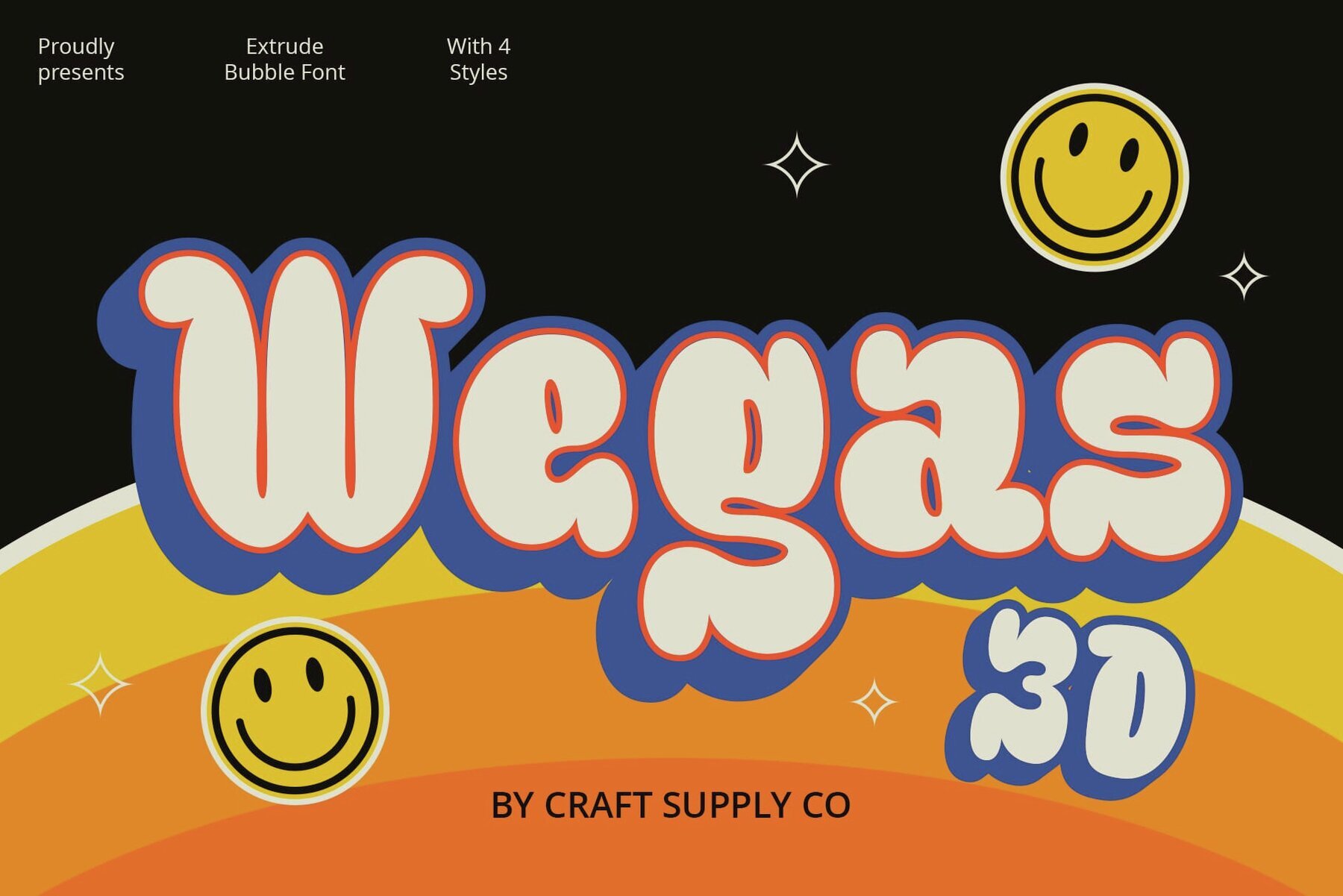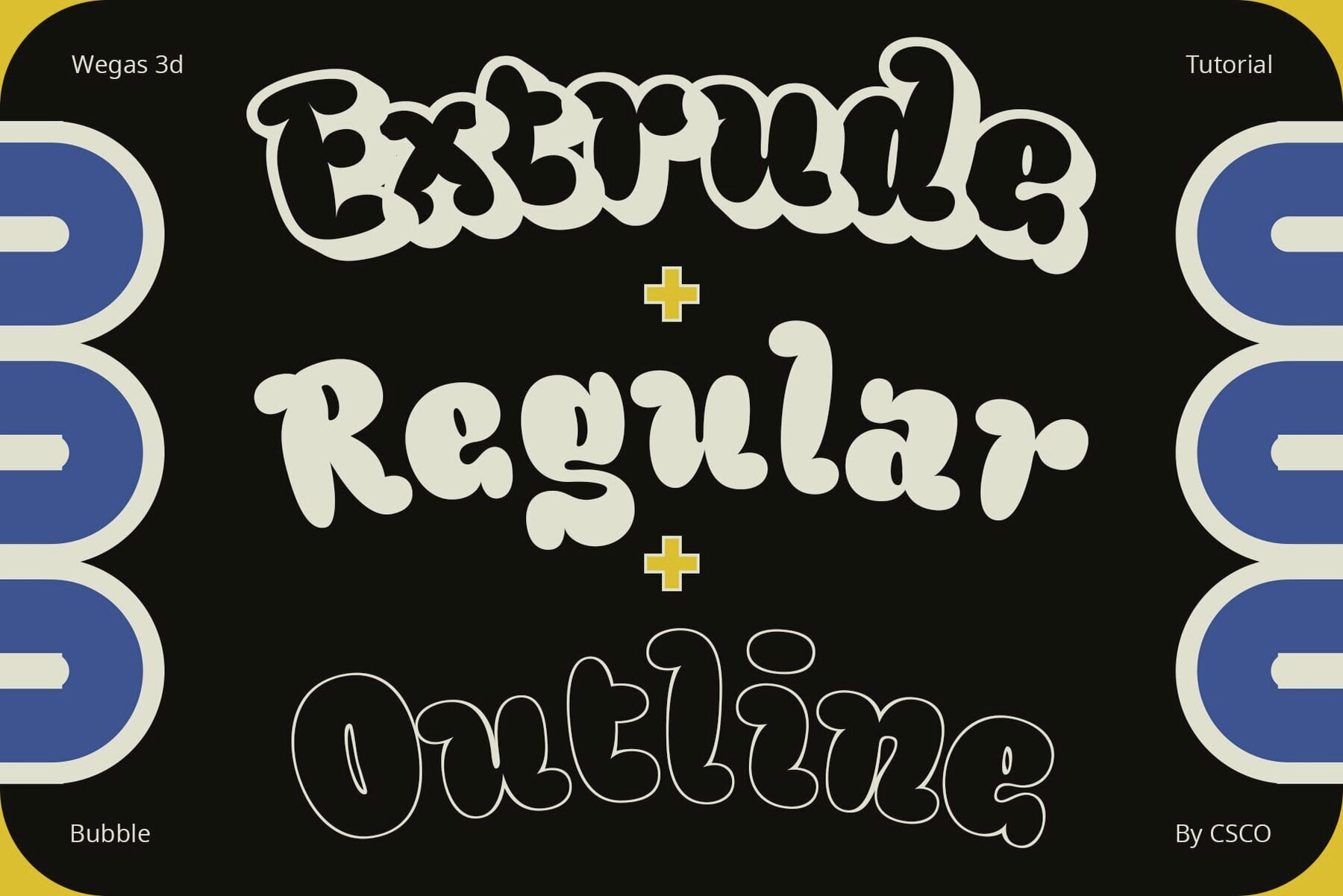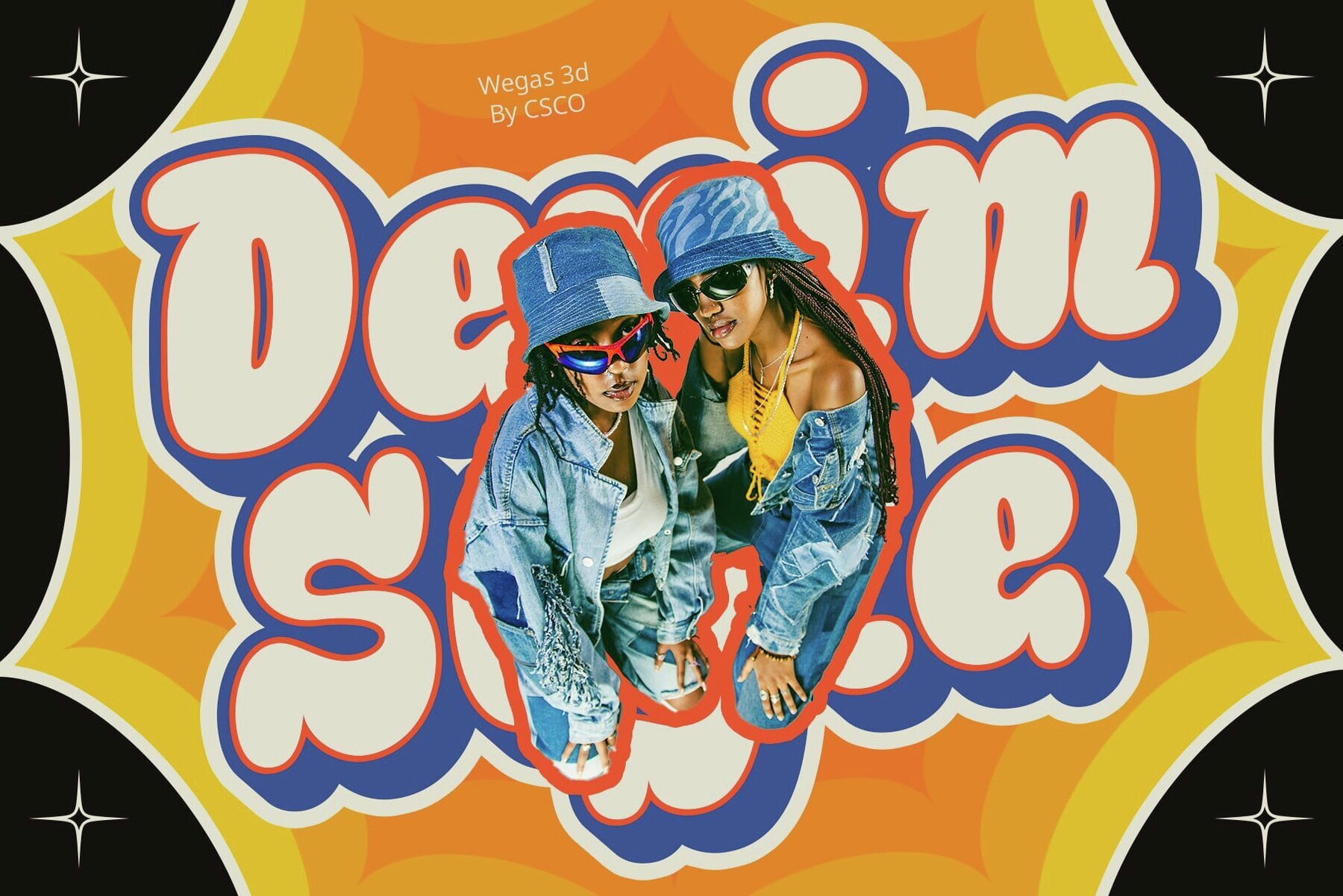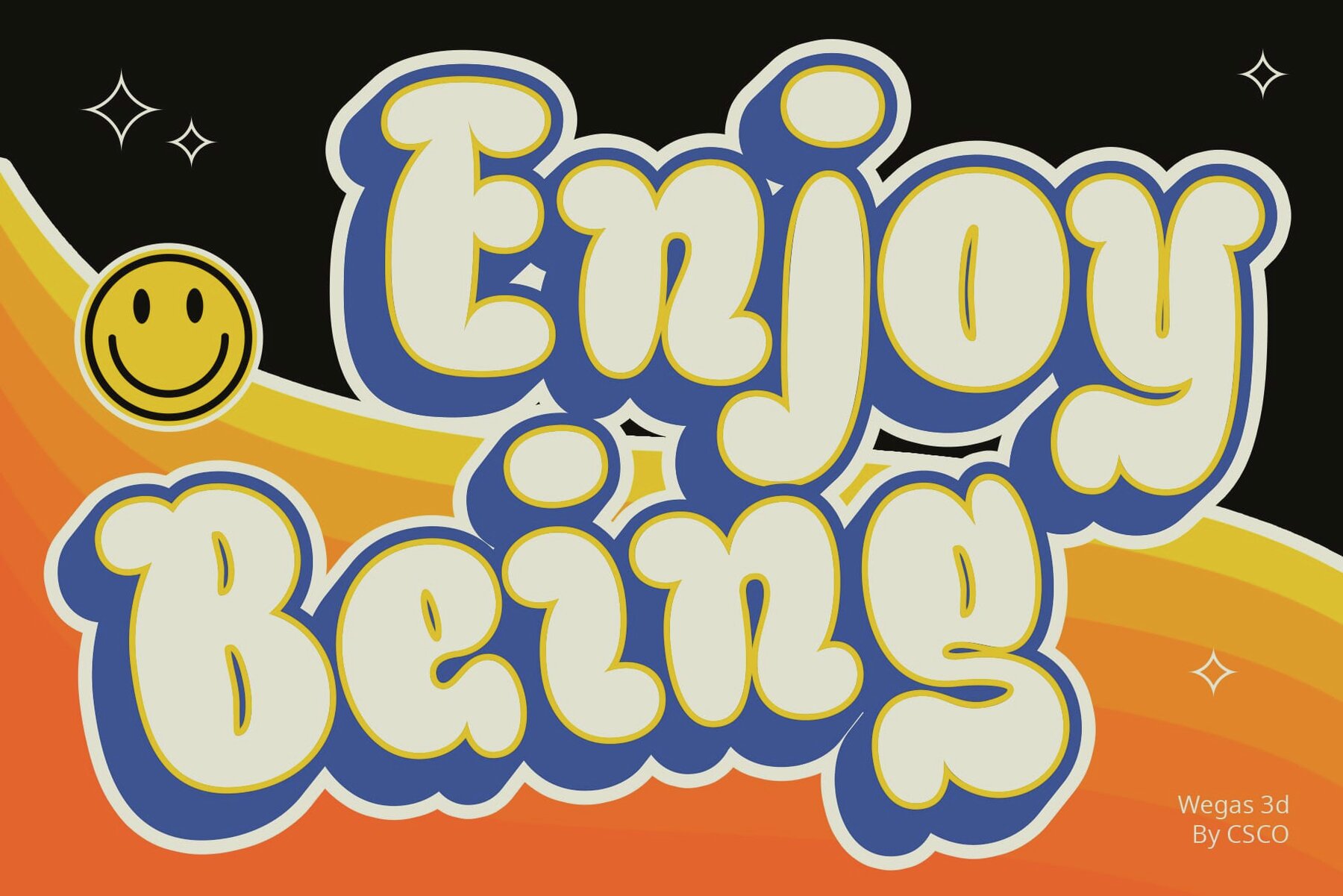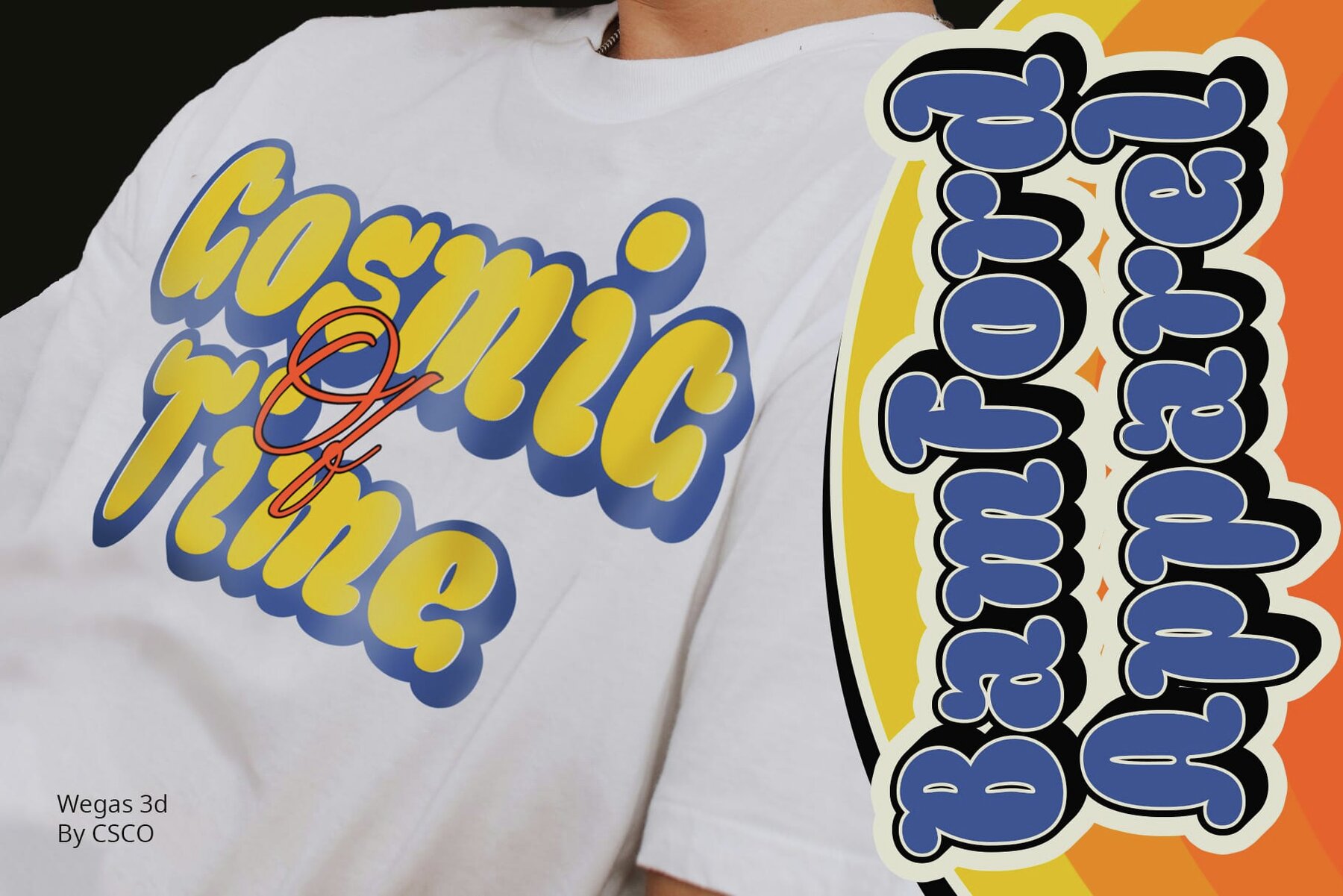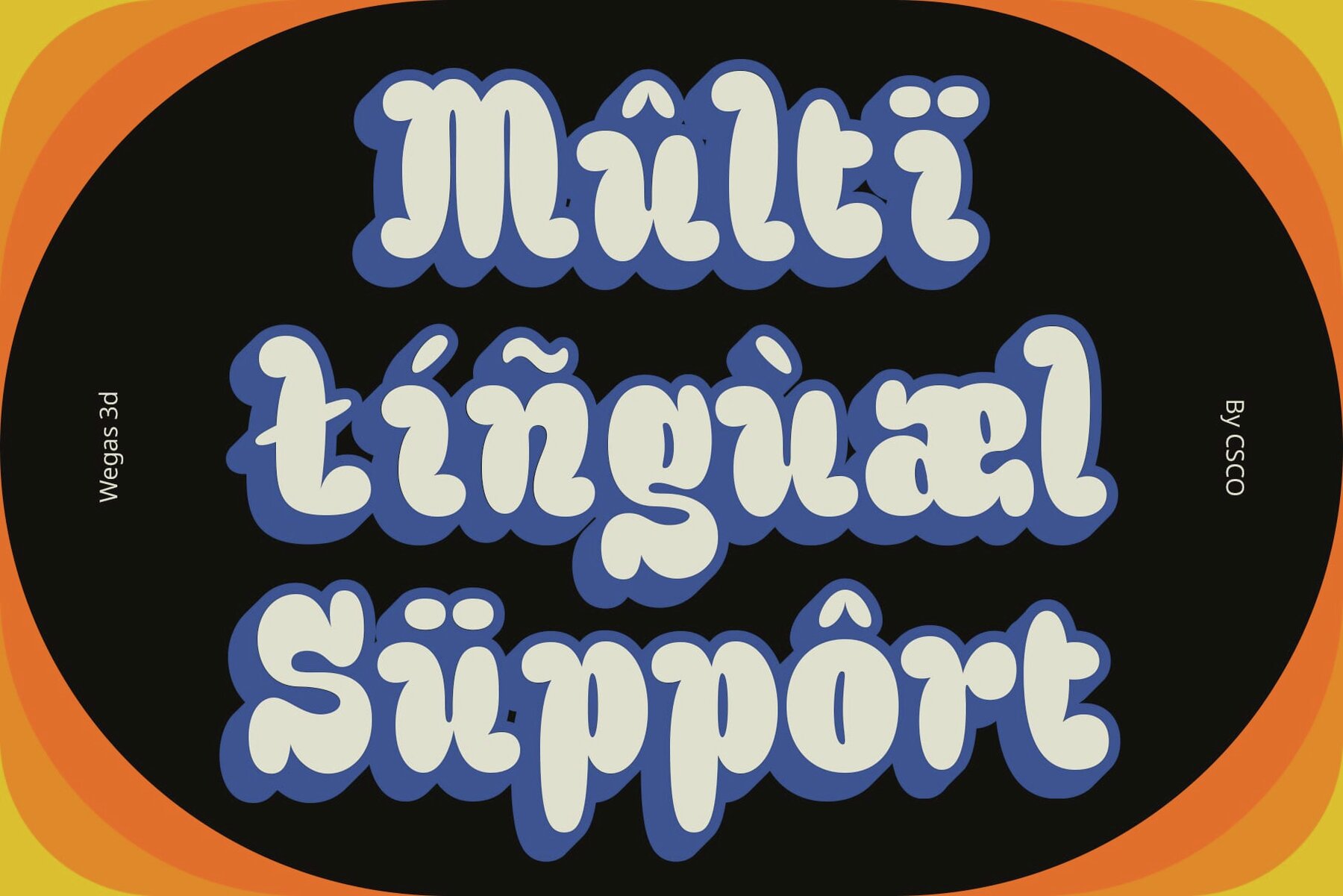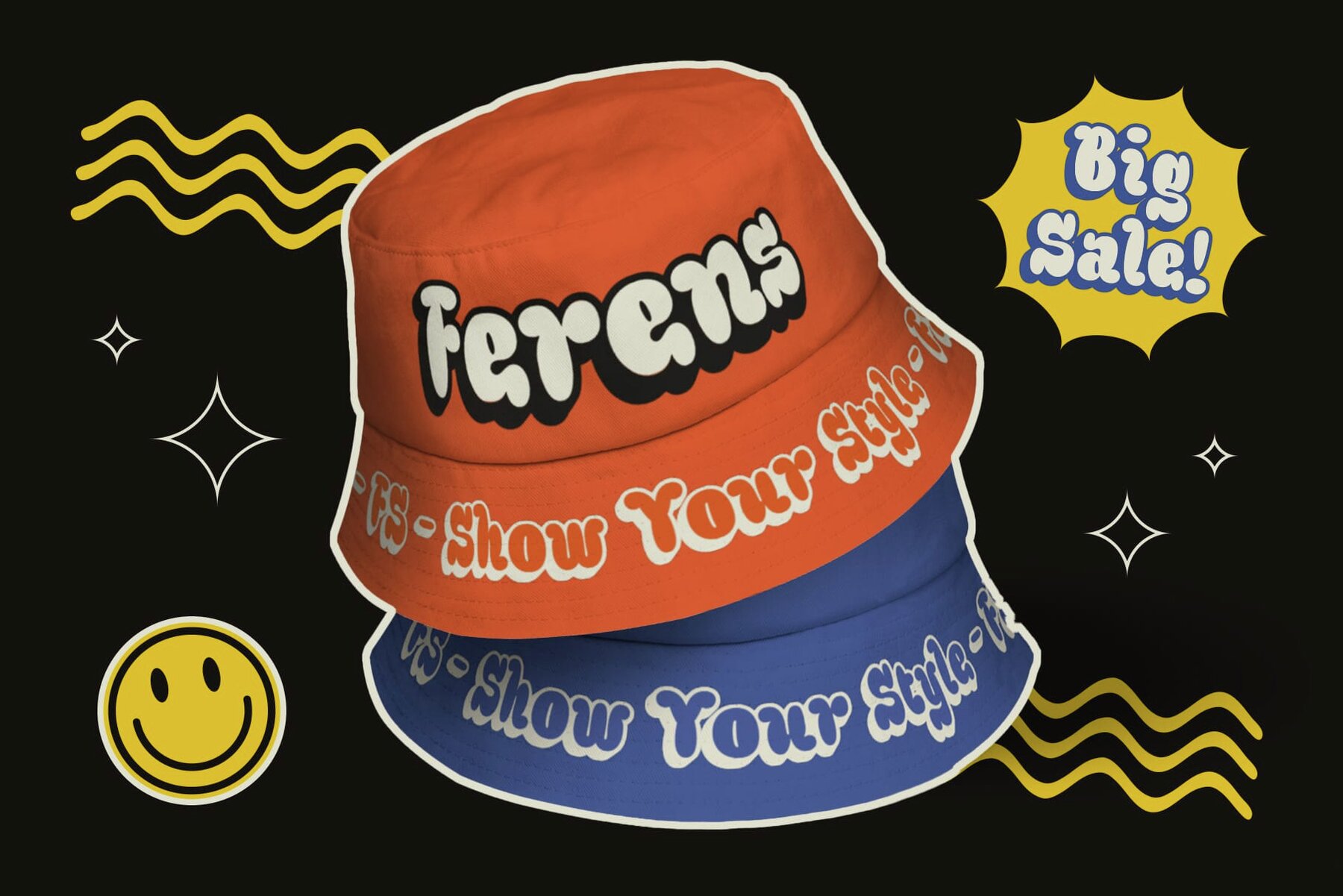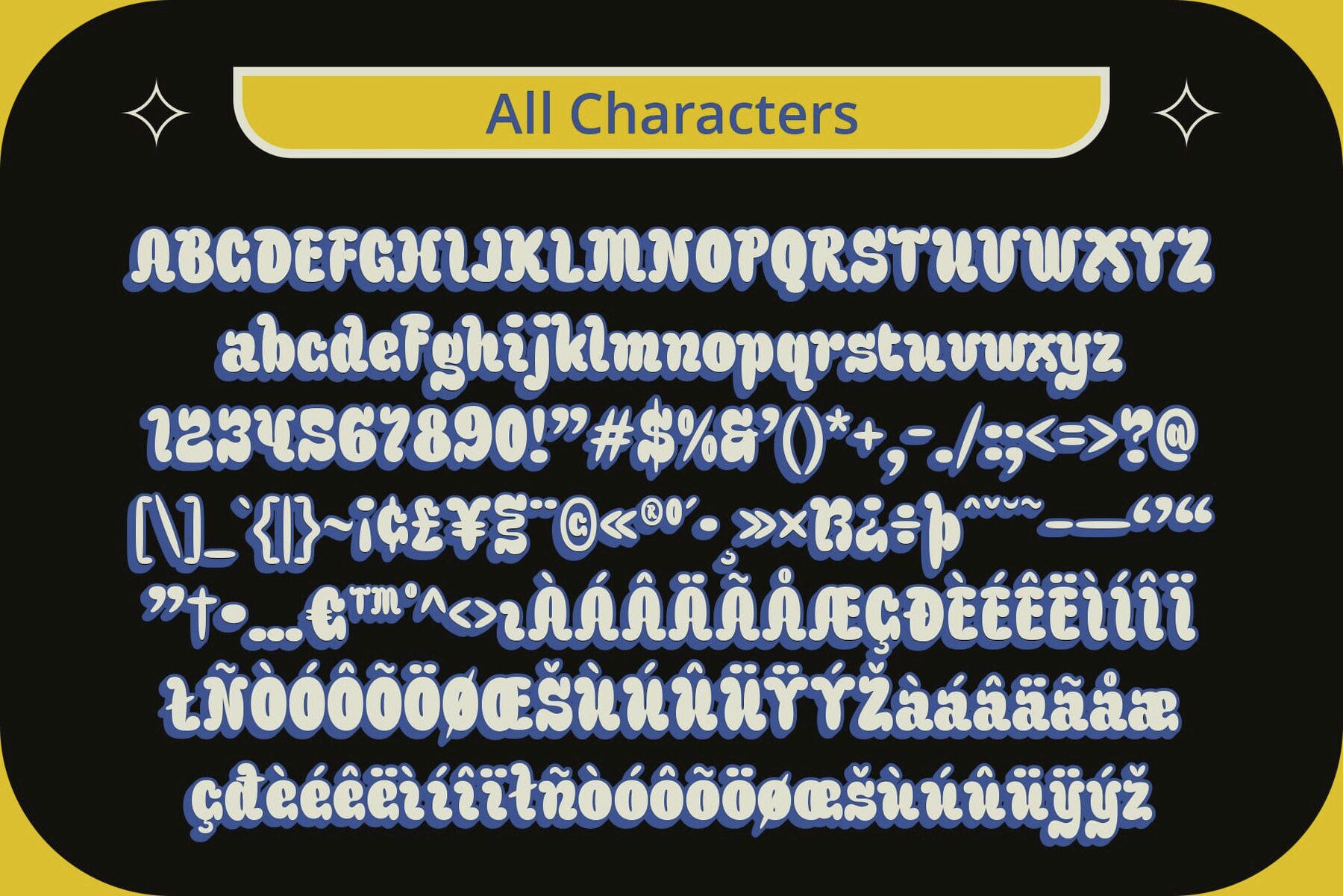
Wegas 3D Font
Playful Bubble Form Wegas 3D boasts a whimsical bubble-inspired design, drawing inspiration from all things fun. Its playful shape instantly captivates, setting the stage for lively and engaging display projects. With dynamic 3D effects, this font takes display typography to new heights. Each character pops off the screen or page, adding depth and excitement to any design. Crafted specifically for display purposes, this font excels in catching the eye and conveying a sense of joy. From event posters to digital banners, it ensures that your message is both seen and remembered. Beyond its playful appearance, this font offers versatility in application. Whether used in branding, advertising, or packaging, its 3D bubble form adds a touch of whimsy to any project. This font is more than just a font; it’s a gateway to a world of fun and creativity in display typography. With its bubble-inspired design and dynamic 3D effects, it injects life and energy into any design project, making it an ideal choice for those seeking to infuse their work with a sense of joy and excitement. You can use this typeface without needing any specialized software. If you have any inquiries or need assistance, please feel free to contact us. We appreciate your support in enhancing your creative projects!Wegas 3D: Infusing Fun into Display Typography
Dynamic 3D Effects
Tailored for Display Needs
Versatility in Application
Fun Meets Functionality